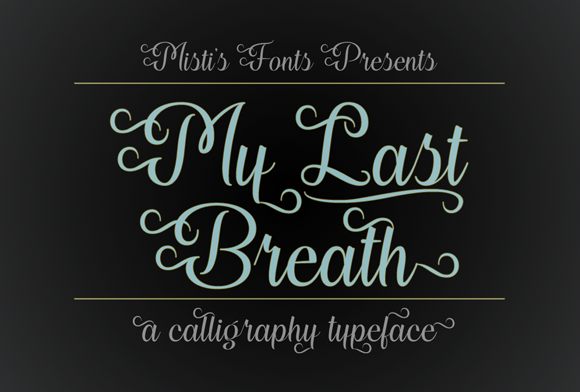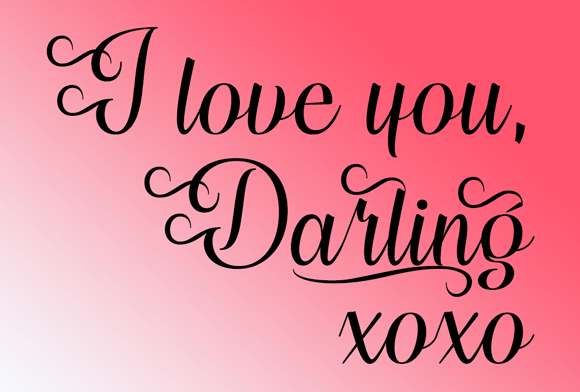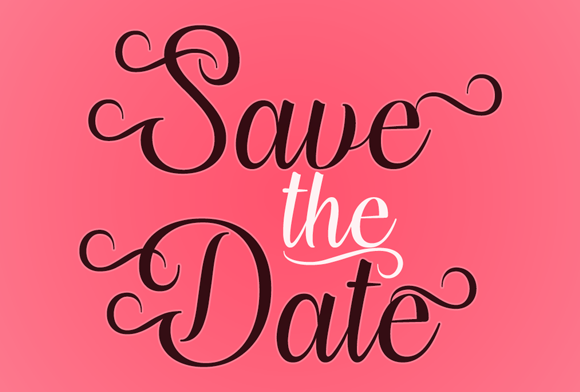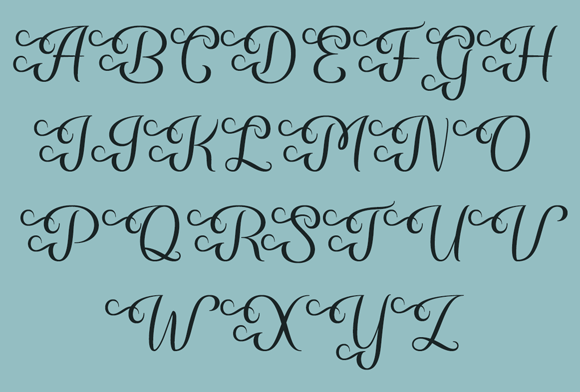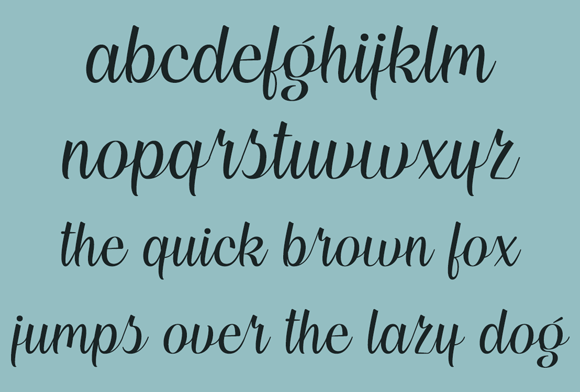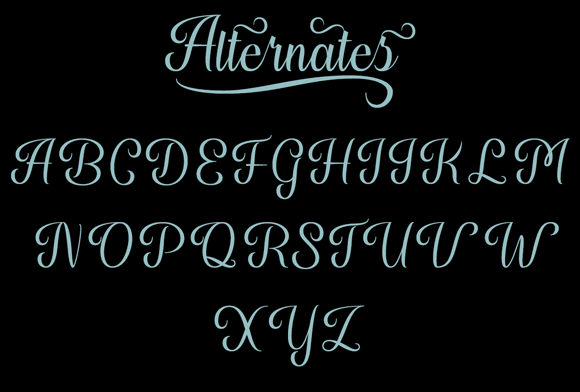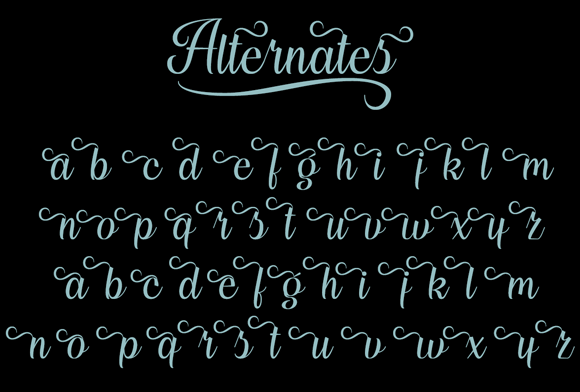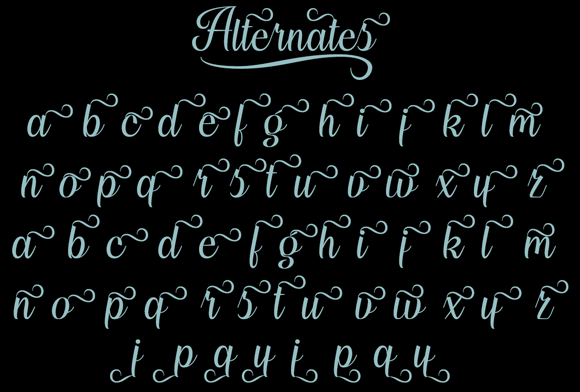
My Last Breath Font
About My Last Breath Font
My Last Breath is an elegant scripted typeface that will add charm and class to your projects! Perfect for wedding invitations, logos, product labels and so much more! Includes swashes and alternates to add more character to your designs!